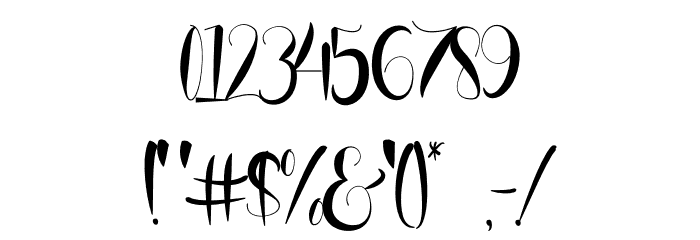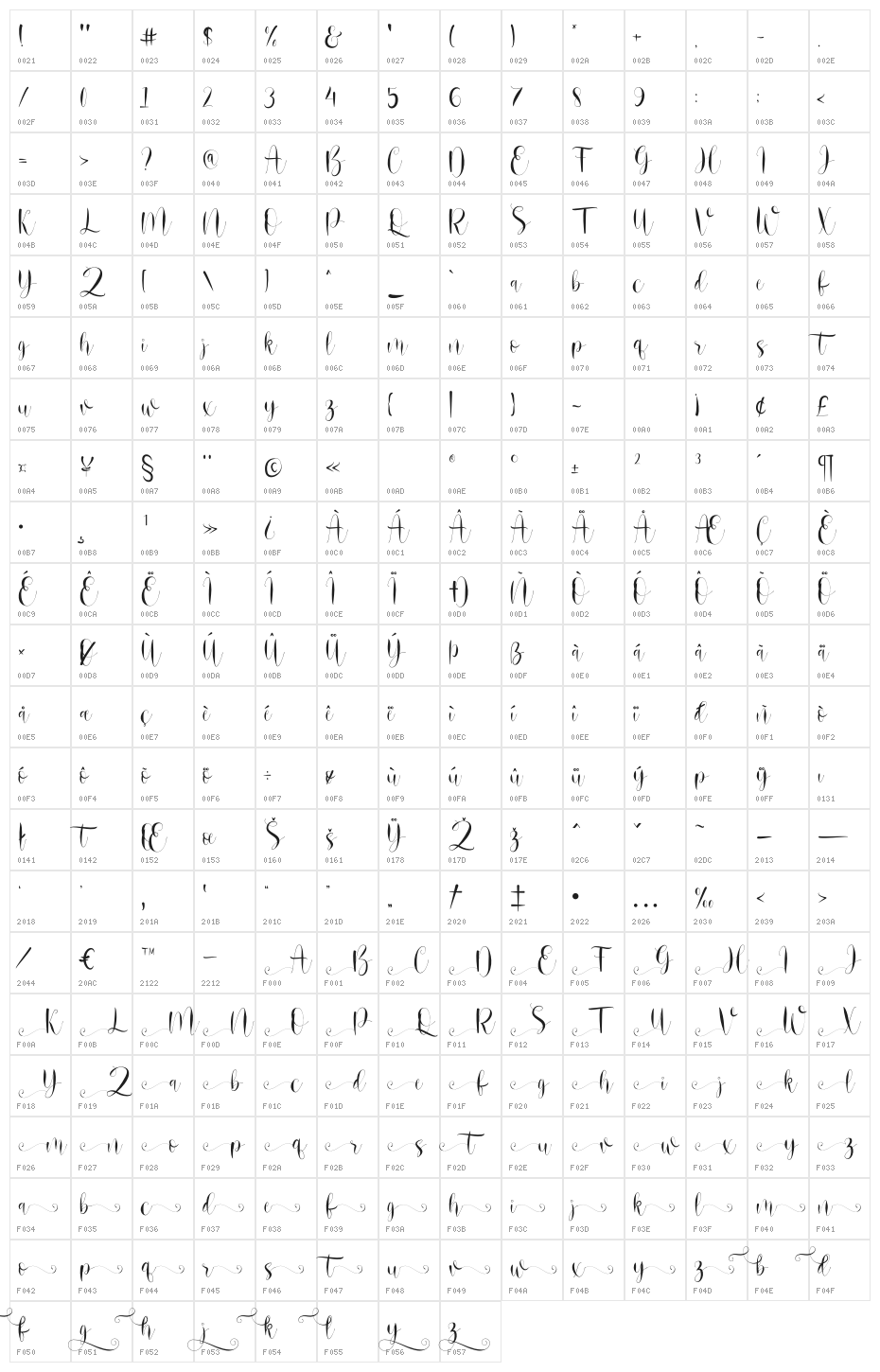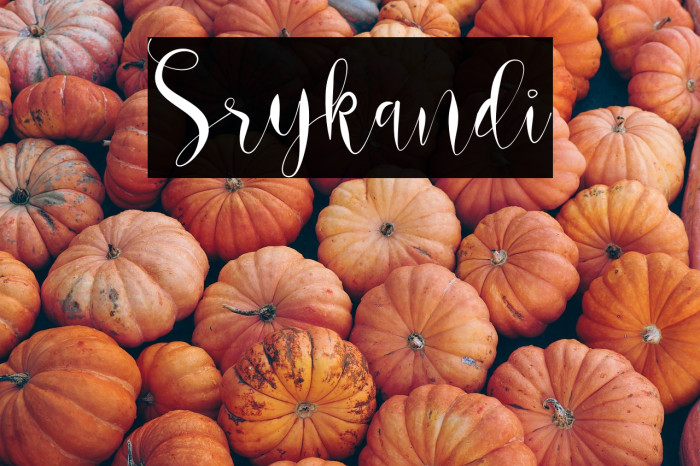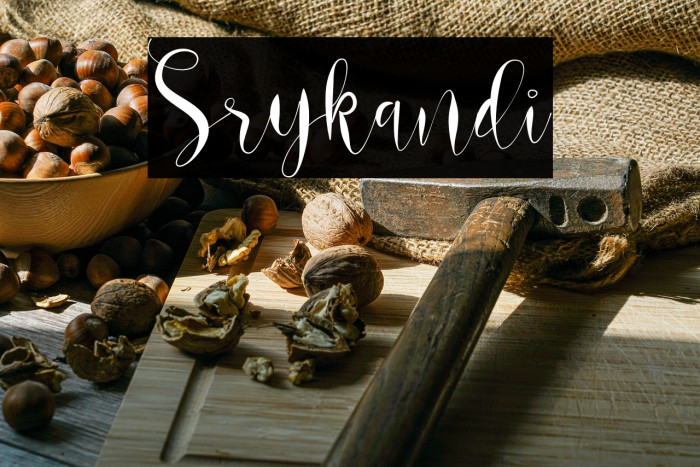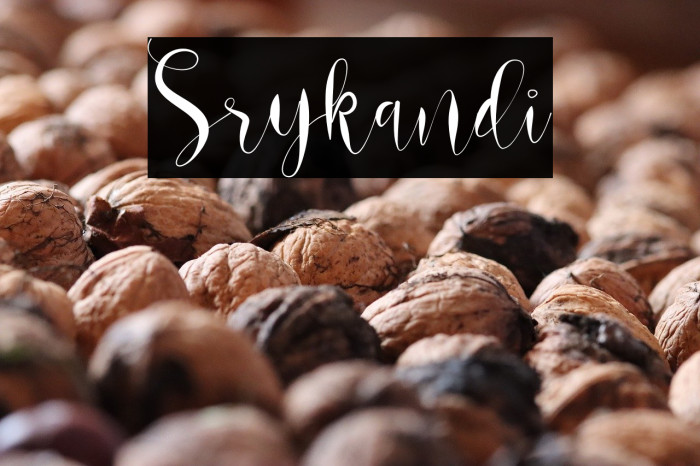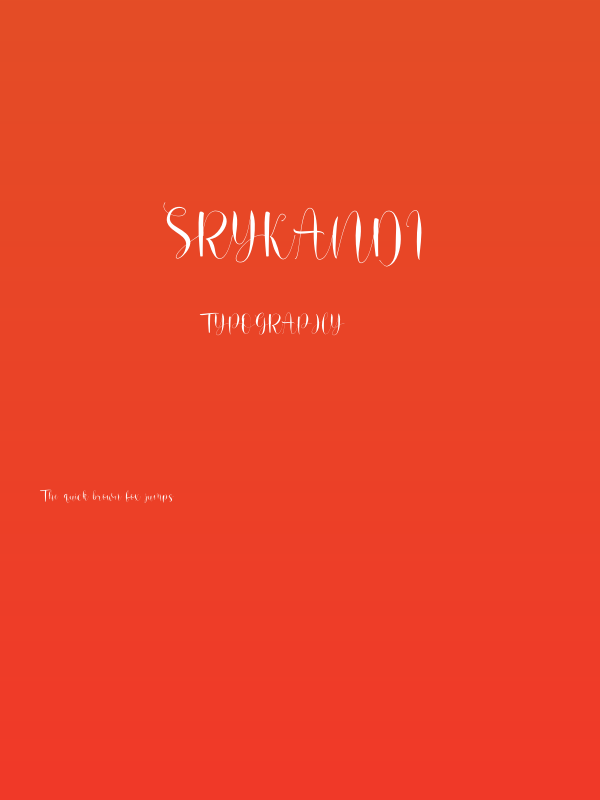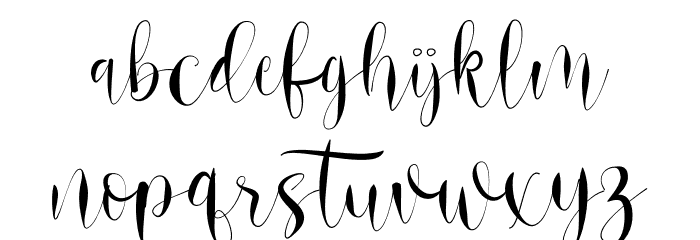
Srykandi Font
Srykandi Description
This font features an elegant and flowing script style, characterized by its smooth, cursive strokes and artistic flair. The uppercase letters are tall and graceful, with sweeping lines that convey a sense of sophistication. The lowercase letters maintain a consistent flow, with some letters featuring unique loops and swirls that add to the font's charm. The numbers are equally stylish, maintaining the same fluidity as the letters. Special characters are creatively designed, complementing the overall aesthetic. This font is perfect for projects that require a touch of elegance and creativity.
| Overall Style | Elegant, Artistic |
| Proposed Projects | Ideal for wedding invitations, greeting cards, branding, and elegant logos. |